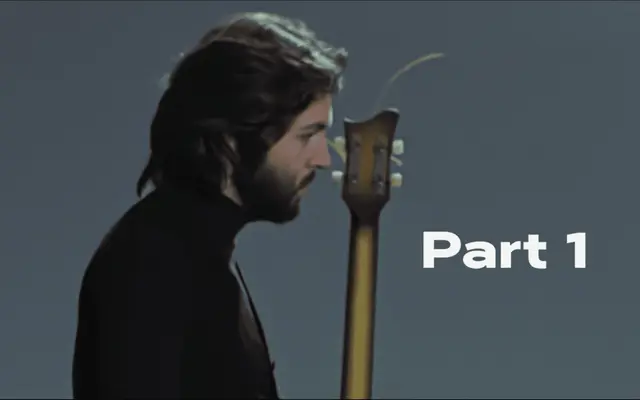
Corbert Wide
A wide geometric sans cut from the Corbert family, built across nine weights with matching italics for headline and display work.
An expanded variant of The Northern Block's Corbert, broadened specifically for display-scale use such as headlines, banners and branding. The family runs nine weights from Thin to Black, each with a matching italic, and each style covers over 540 characters with OpenType features including five numeral variants, fractions and alternates for lowercase a, e and g. Language support spans Western, Southern and Central European Latin.
Corbert Wide is explicitly described as a geometric sans-serif, extended as a wide variant of the Corbert family for display use. Its broad character width and geometric construction place it firmly in the geometric sans subcategory.